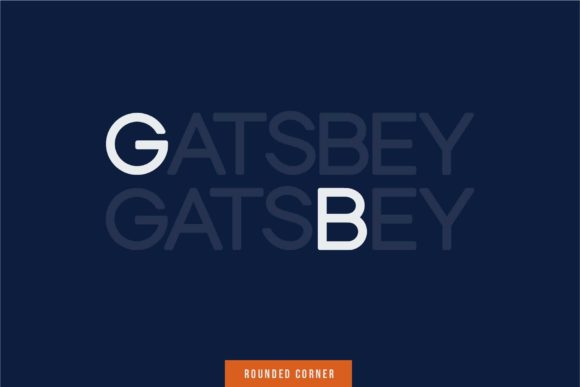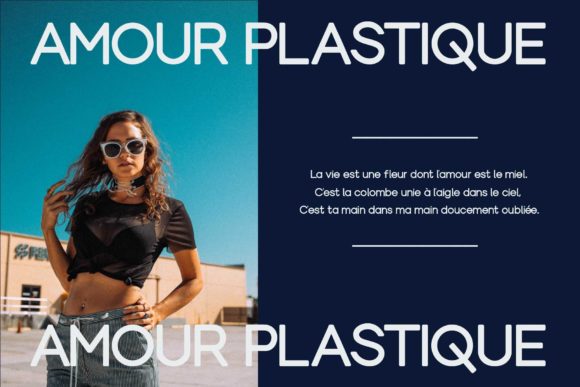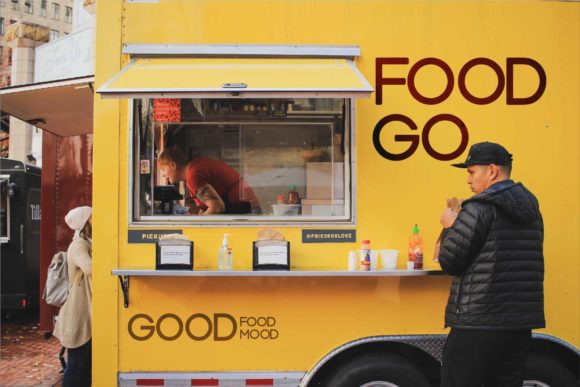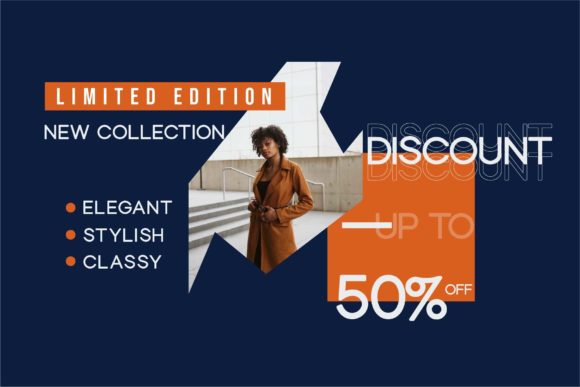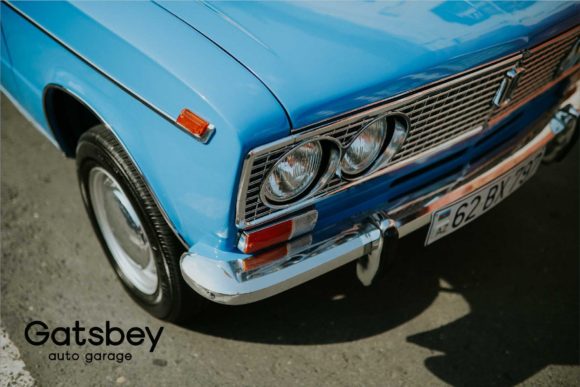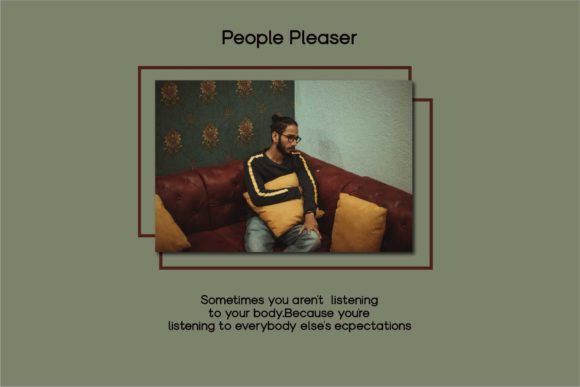
Introduction to Gatsbey Font
Gatsbey is a simple lettered and neat sans serif font.
Key Features of Gatsbey Font
Why Choose Gatsbey Font?
Gatsbey Font offers exceptional quality and versatility, making it a valuable addition to your design toolkit. Whether you’re creating for personal projects or commercial use, Gatsbey Font delivers professional results.